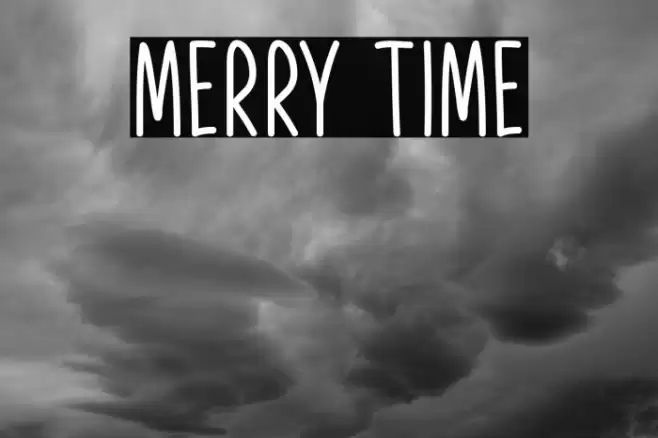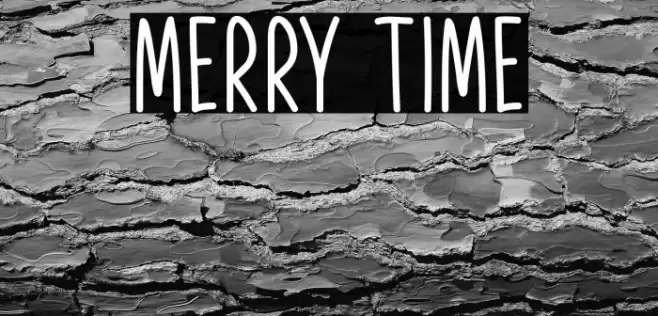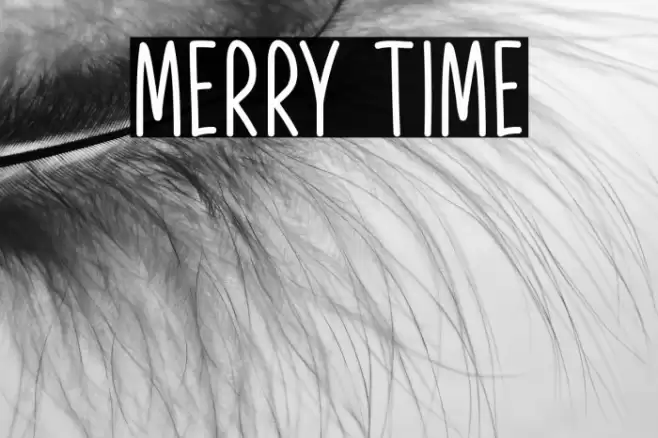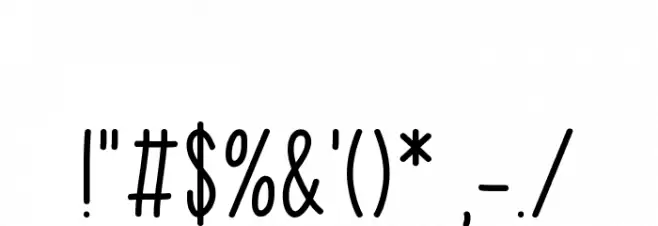
Merry Time Font
Merry Time Description
This font features a playful and whimsical design, characterized by its tall, narrow letters with a hand-drawn appearance. The strokes are consistent in width, giving it a uniform look, while the slightly irregular shapes add a touch of charm and personality. The uppercase and lowercase letters maintain a cohesive style, with rounded edges and a friendly demeanor. The numerals and special characters complement the alphabet, maintaining the same playful aesthetic. This font is ideal for projects that require a casual and approachable feel.
A playful, hand-drawn font with tall, narrow letters and a whimsical style from Regular fonts.
- Proposed Projects: Ideal for children's books, greeting cards, playful branding, and casual invitations.
- Overall Style: Playful
- Use Case: Headlines, Logos, Invitations